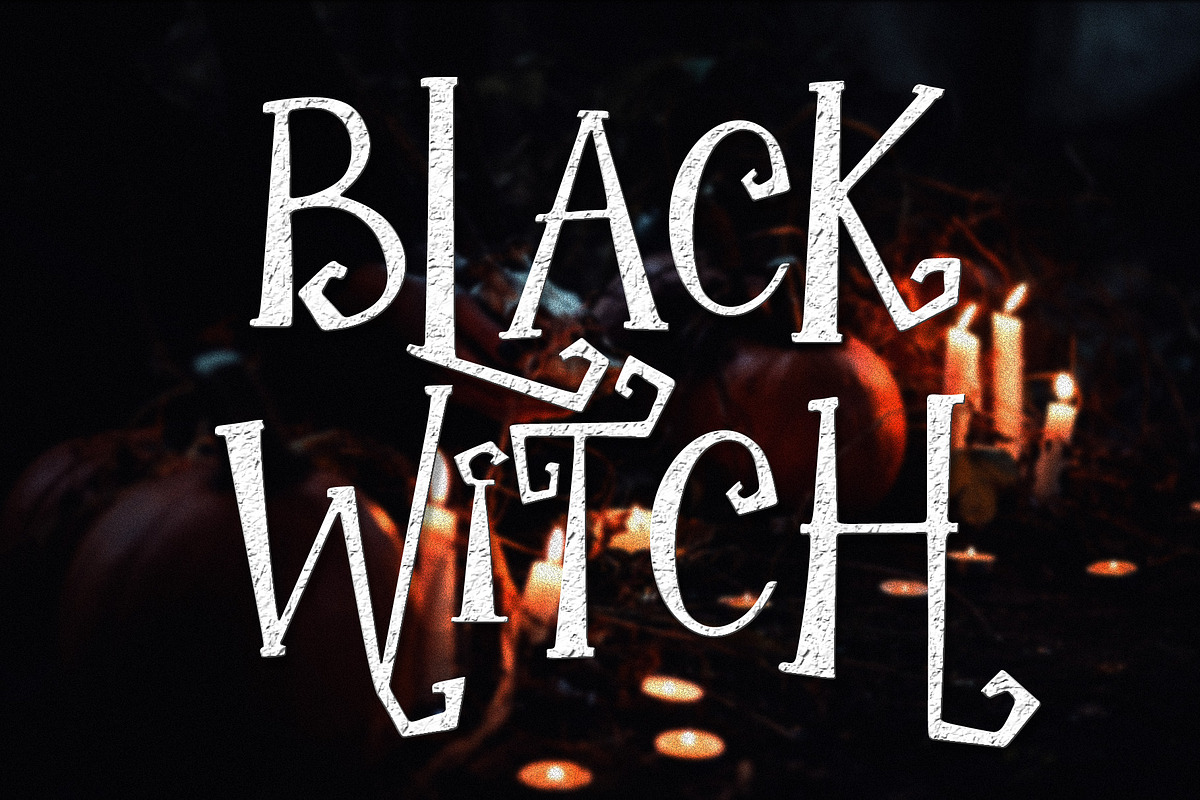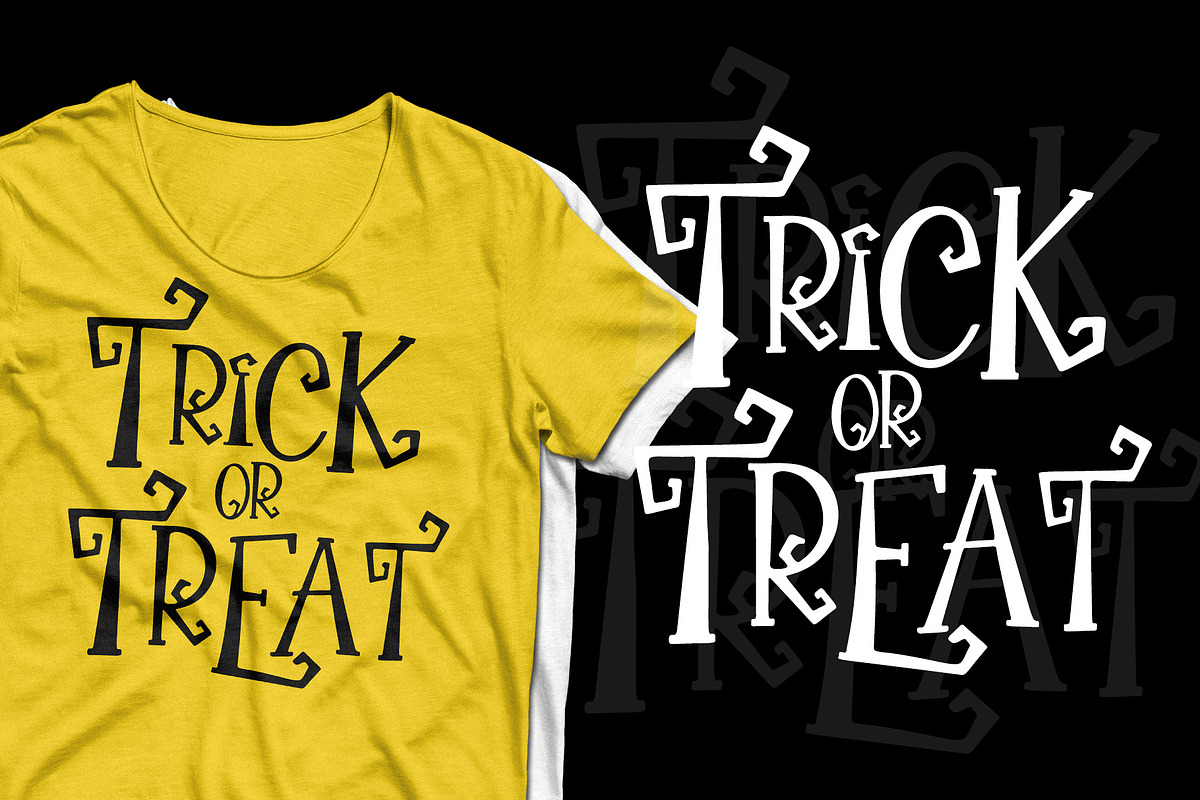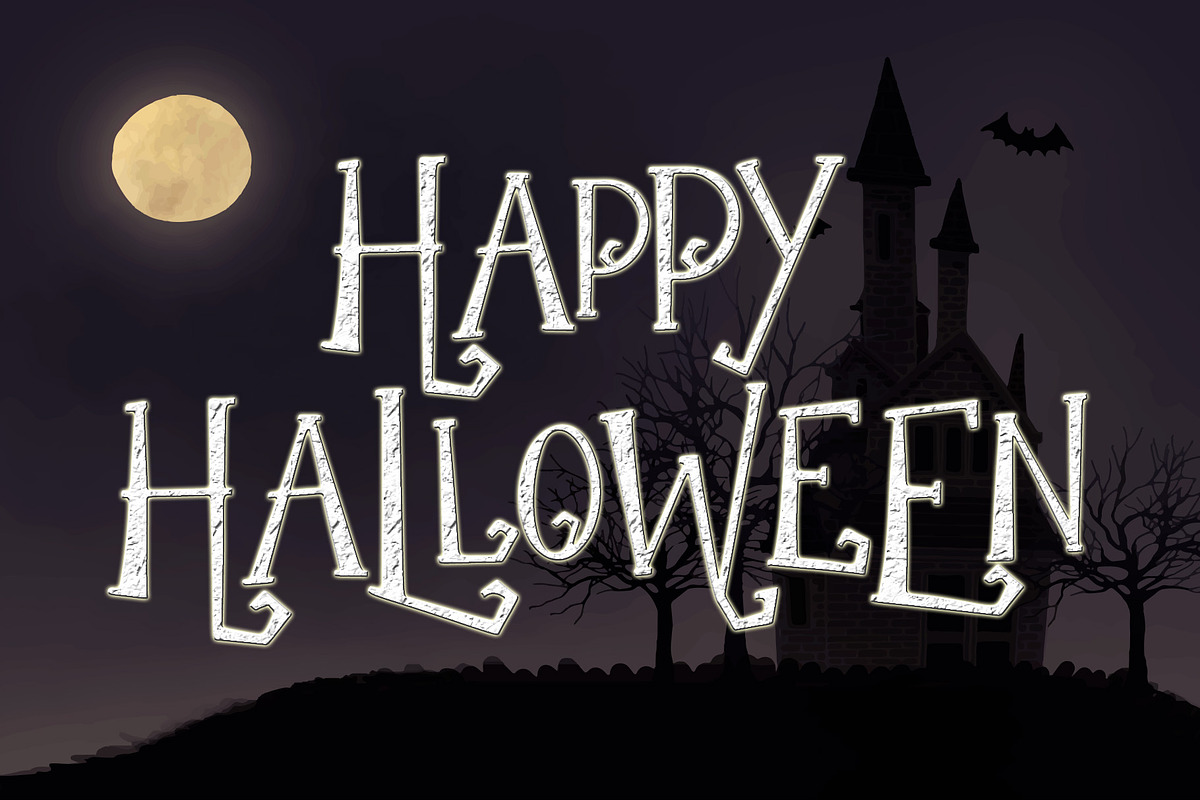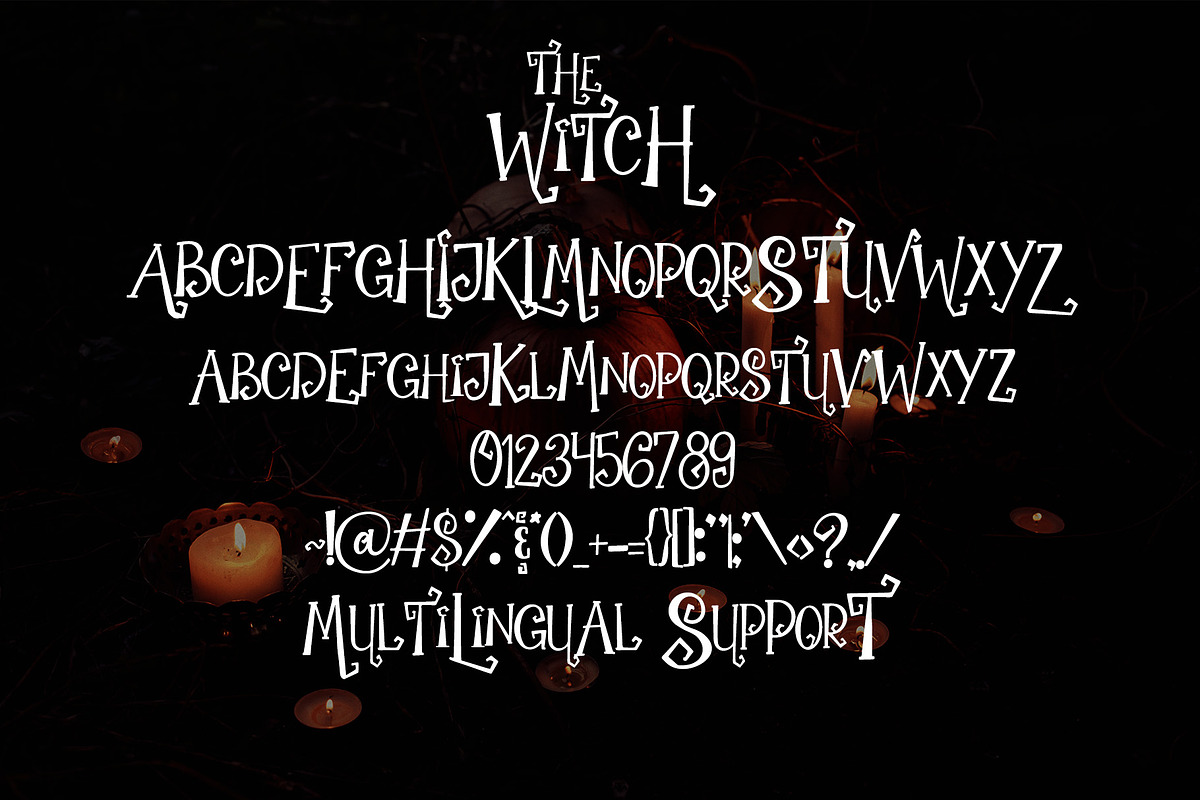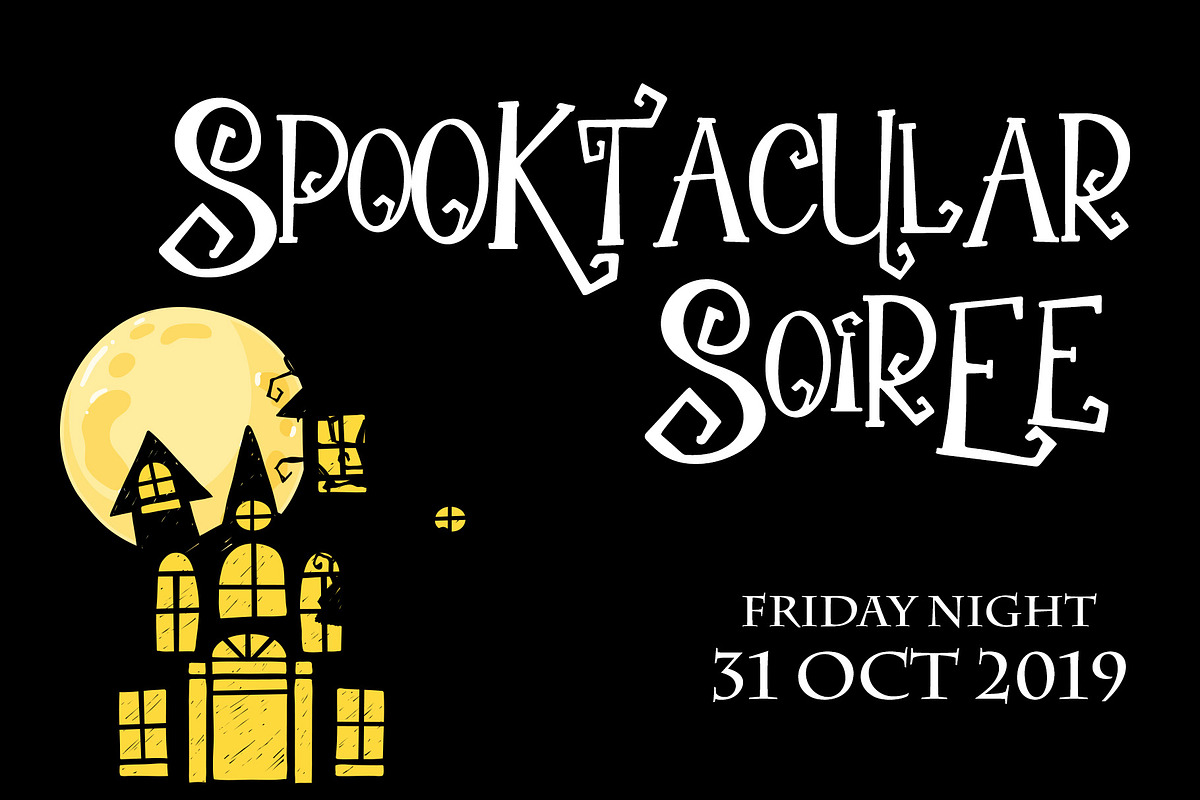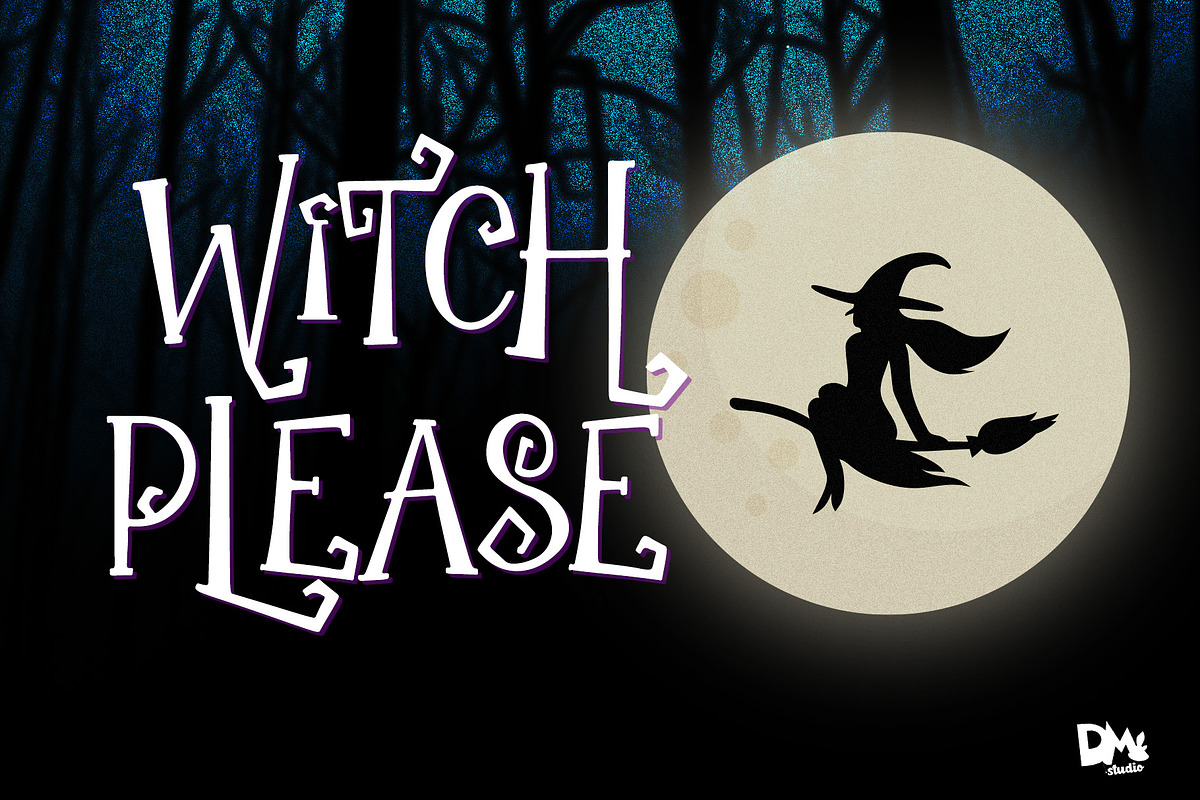
The Witch - Spooky Font
The Witch, Spooky Font Great choice for your Fun project, merchandise, posters, card, party, cutting project, quotes, and any kind of crafting on your Holiday moment!
Uppercase (As Alternative)
The Witch - Spooky Font by Dm Studio fits naturally into Branding, posters, packaging, typography.